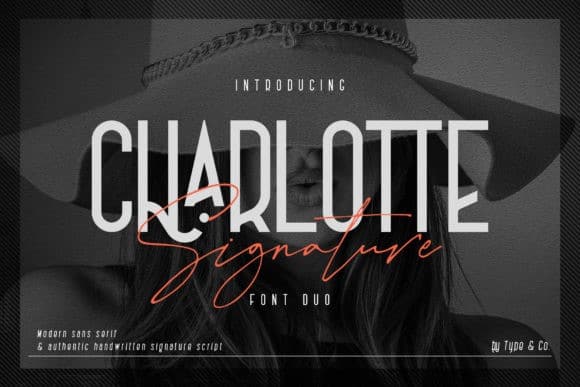
Charlotte Font
Charlotte Display Font is a futuristic typeface inspired by science fiction movies from the 1980s and 90s. This typeface is a spectacular duo font manufactured by Type and Co. Incredibly versatile, this font fits a wide pool of designs, elevating them to the highest levels. Add this font to your favorite creative ideas and notice how it makes them come alive!